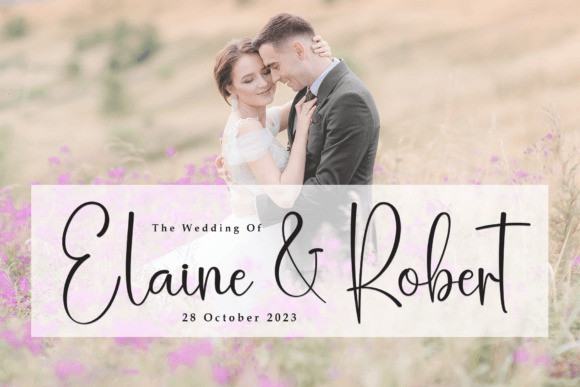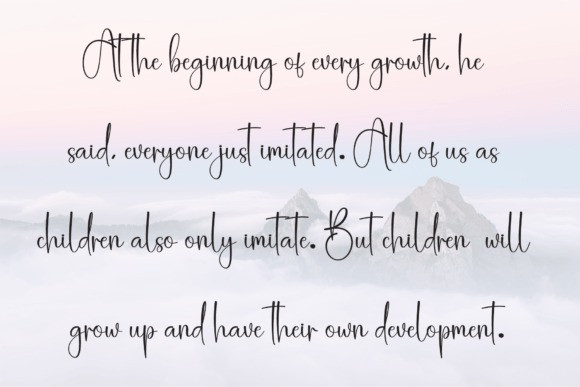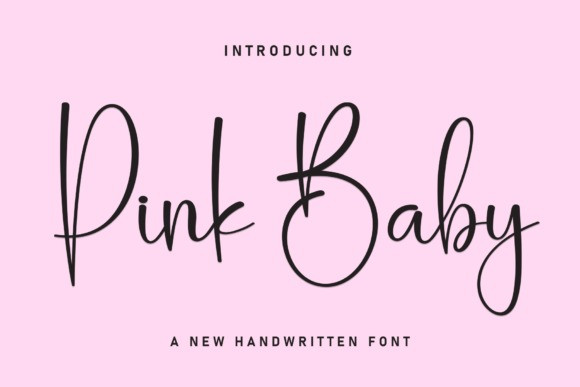
Pink Baby Font
Pink Baby Font is a charming handwritten font that exudes a delightful and playful aesthetic. With its graceful strokes and whimsical curves, this font adds a touch of sweetness to any project. Perfect for invitations, greeting cards, or any design where a touch of warmth and friendliness is desired, Pink Baby brings a soft and endearing vibe to your text. Embrace the handwritten charm and give your creations a gentle, inviting feel with this lovely typeface.